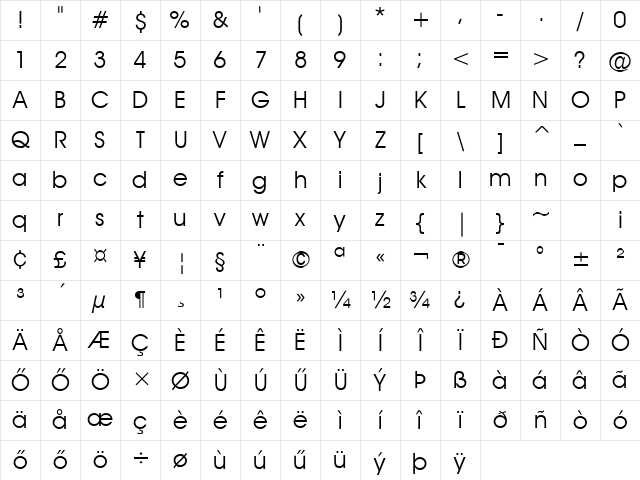
AvantGarde Bk HU Normal
Design Context for AvantGarde Bk HU
AvantGarde Bk HU is a composed and adaptable typeface that performs quietly and consistently across a wide range of design contexts.
Pro Tip: Use AvantGarde Bk HU in both headline and body roles to test its range before committing to a single application.